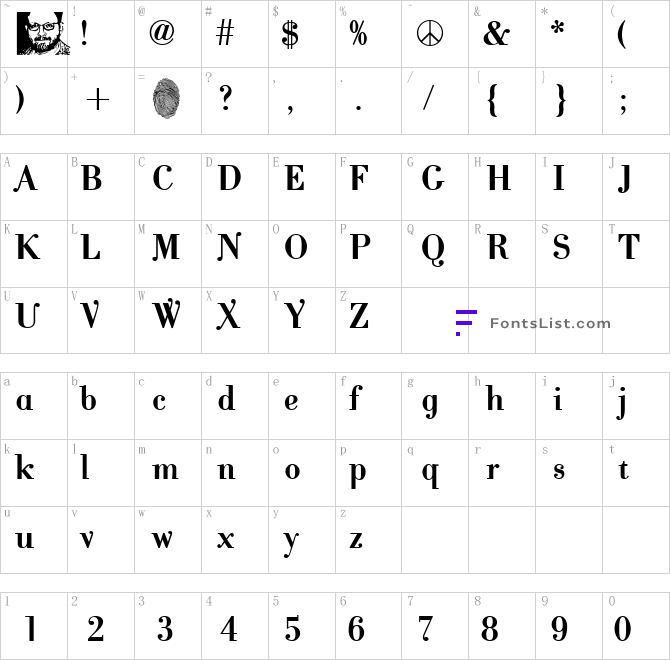
CantabileDemi.ttf is a very beautiful artistic font, CantabileDemi.ttf is widely used in the design and printing of various books and pictures,CantabileDemi.ttf has a strong visual impact,CantabileDemi.ttf is a commonly used font in newspapers, magazines and books, and is used in posters, e-commerce Poster design, store design, logo design, font design and other fields.CantabileDemi.